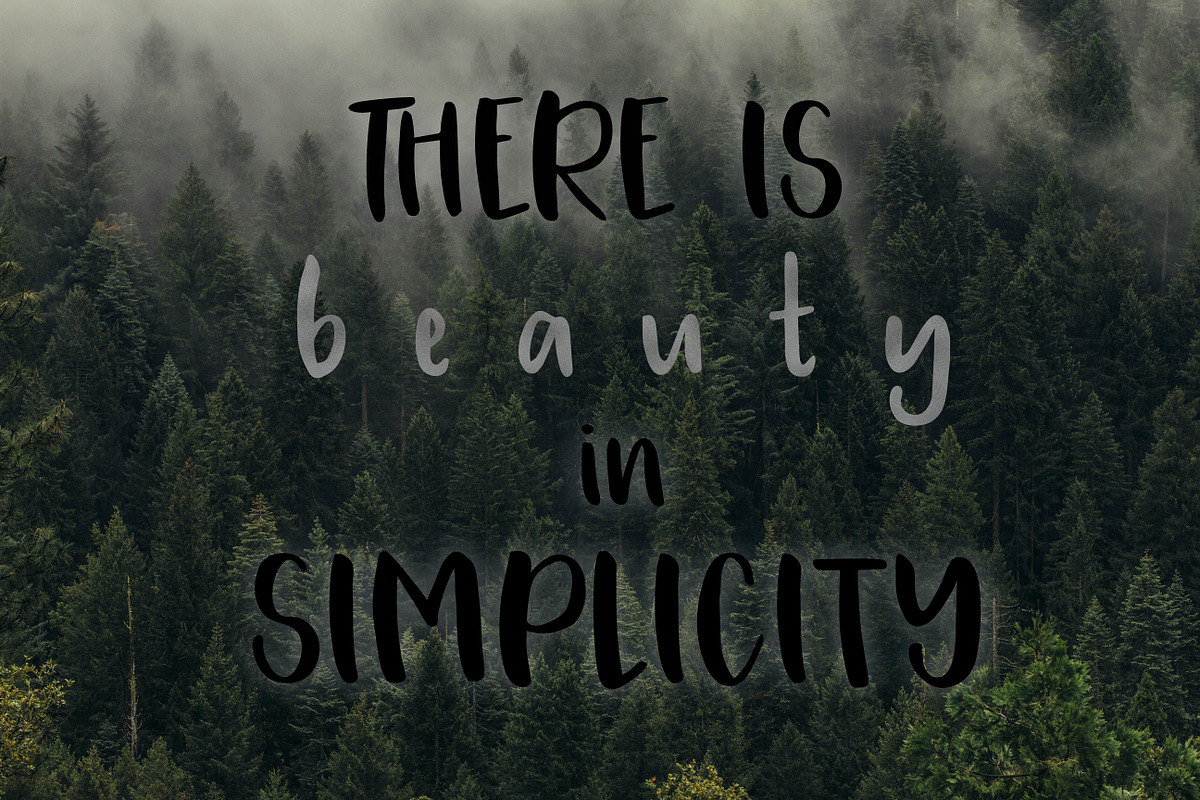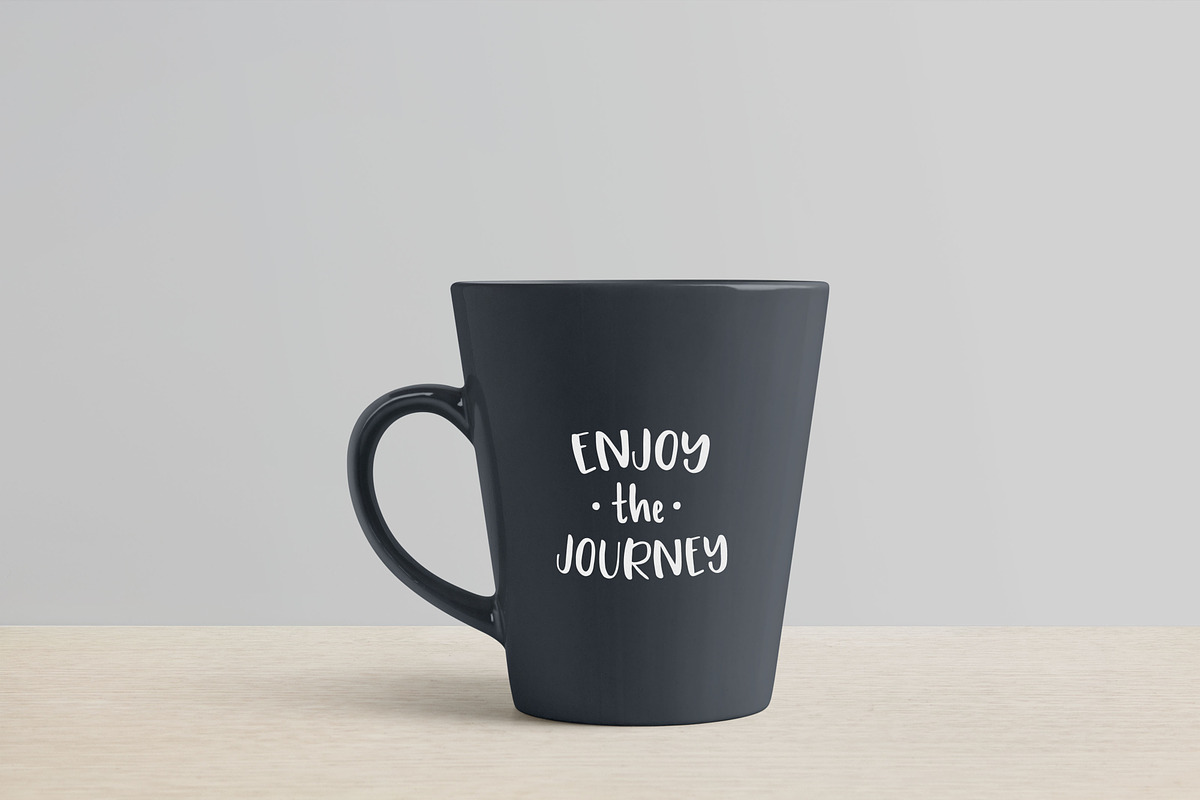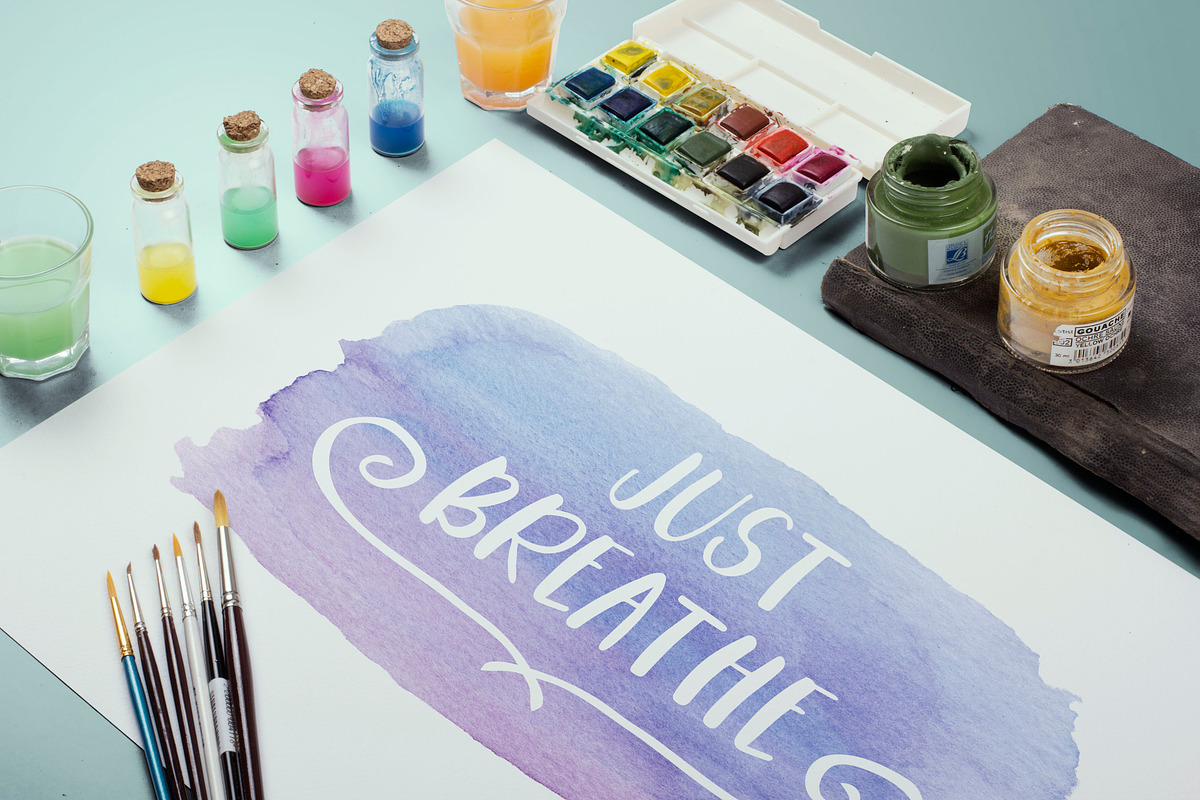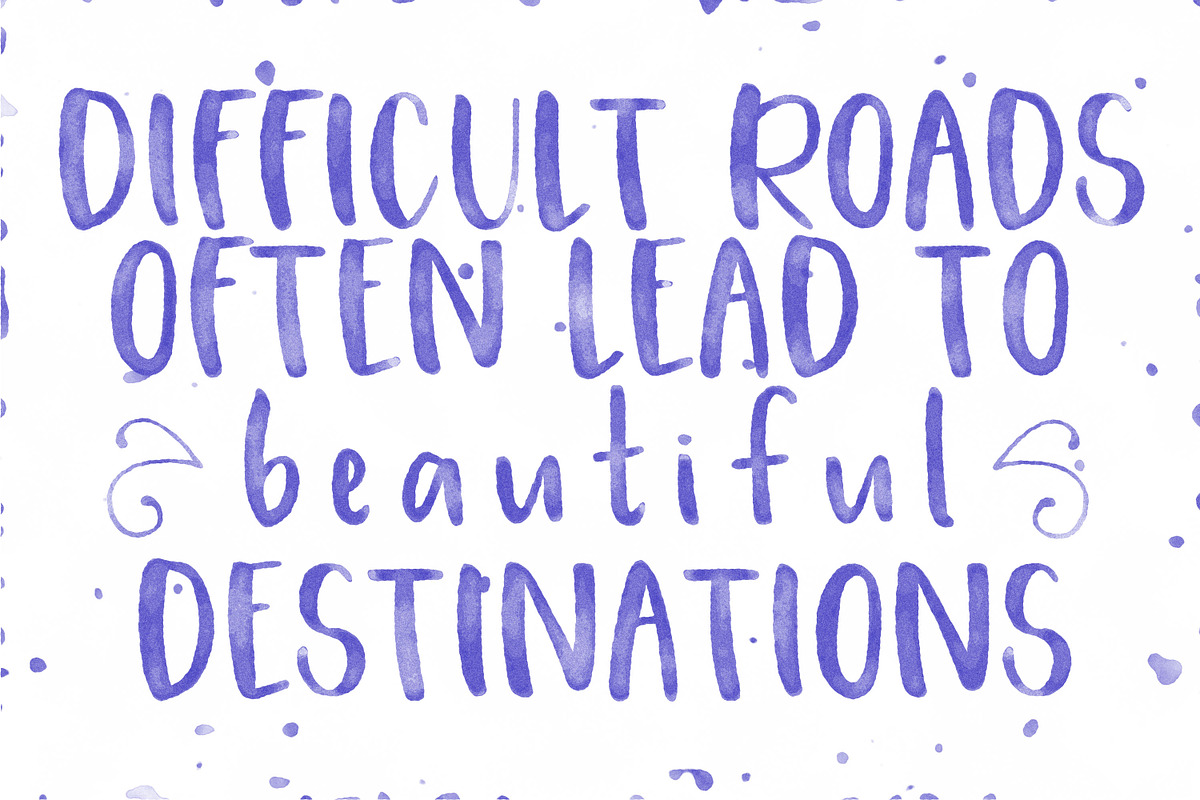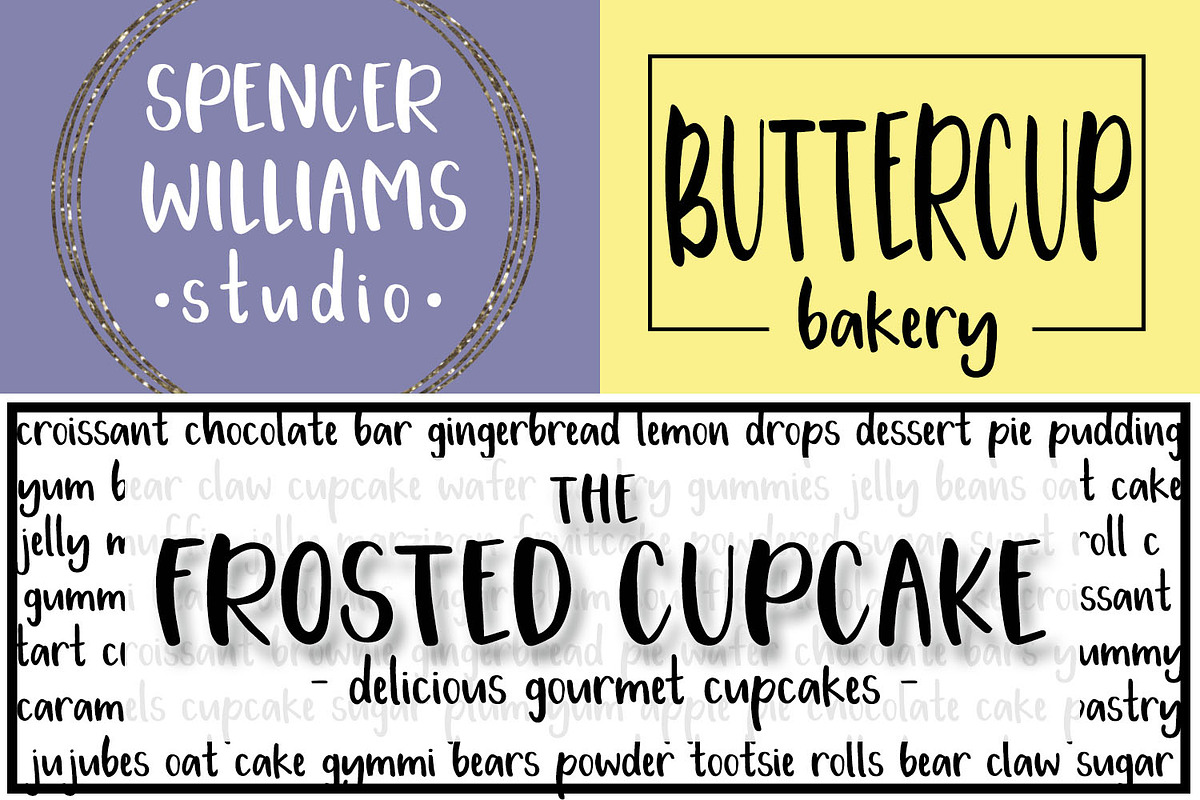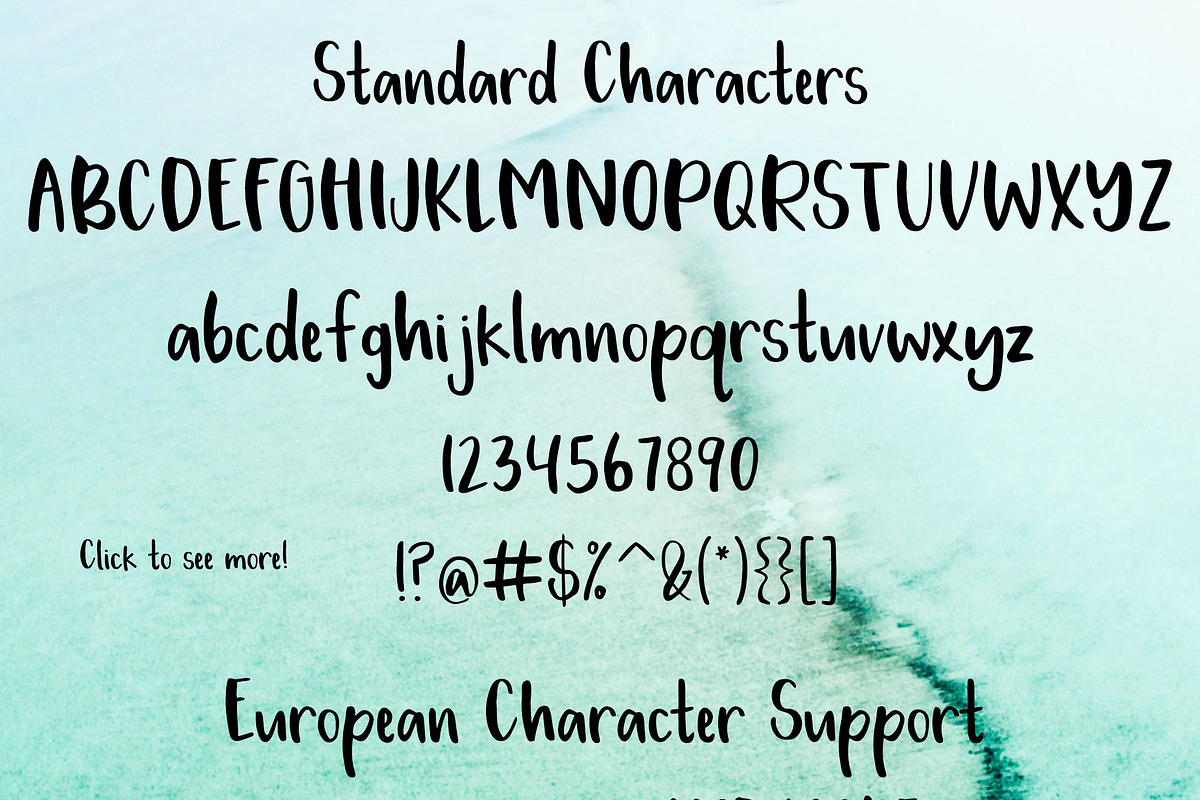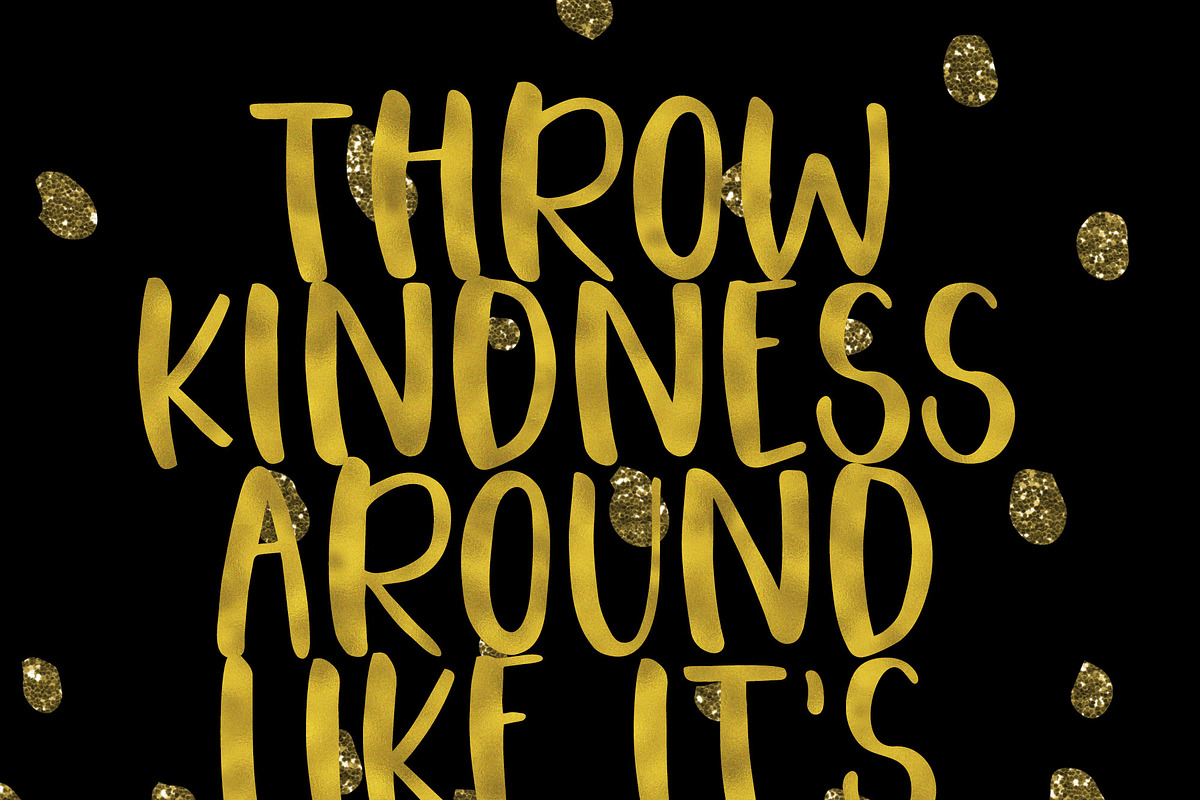
SALE - Lakeside Font
Lakeside is a fun, handwritten font that will look perfect on your designs, logos, packaging, greeting cards, social media, prints, and more!
Use all CAPS for a fun look that would be paired well with a script font!
Lakeside has two discretionary ligatures included: TH LL
- TH LL
- Lakeside has two discretionary ligatures included: TH LL Multilingual support is included for Western European languages.